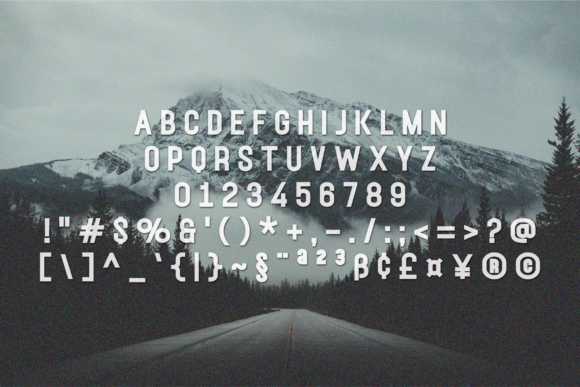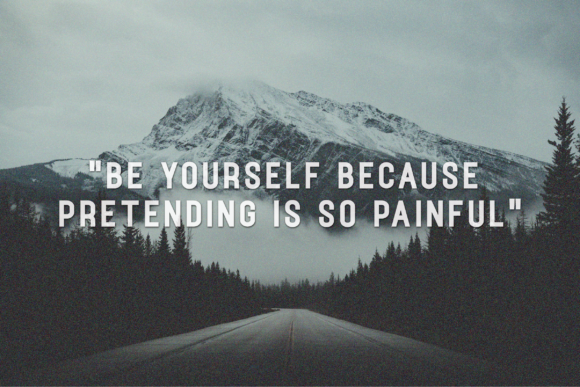
Discovering the Power of Routeks Font
The moment you land on a well-designed website, or spot a clever logo, you know you’re in the presence of something special. As a designer, I’ve had my fair share of eureka moments, but recently, I stumbled upon a game-changer – the Routeks Font. This all caps sans serif font has been making waves in the design community, and for good reason. With its smooth and clean lines, and just the right amount of contrast, it’s the perfect addition to any creative project.
As a valuable design resource, Routeks Font is a must-have for any serious designer. Whether you’re working on a high-quality branding project or creating a beautiful web heading, this font is sure to elevate your work. And the best part? It’s available for a free download, making it accessible to designers of all levels. With its transparent background and versatility, Routeks Font is the perfect choice for any design project that requires a touch of sophistication and style.
Key Features of Routeks Font
- Unique, modern design style that can add a touch of sophistication to any creative project
Honest Review: Routeks Font
I recently came across the Routeks Font, a free download that I’m excited to share my thoughts on. As a designer, I’m always on the lookout for high-quality design resources to elevate my creative projects. The Routeks Font definitely delivers.
- ✨ The font has a modern, sleek aesthetic that works well for a variety of design applications.
- ✨ The font comes in multiple weights and styles, making it easy to customize and adapt to different design needs.
While the Routeks Font is a great addition to any design resource library, there are a few limitations to consider:
- ⚠️ The font may not be suitable for complex or large-scale design projects due to its relatively simple design.
- ⚠️ Some users may find the font’s modern aesthetic too trendy or lacking in versatility.
Overall, I’m impressed with the Routeks Font and would recommend it to designers looking for a high-quality, modern font for their creative projects. While it may have some limitations, the benefits far outweigh the drawbacks.
Routeks Font
Tips for Getting the Most Out of Routeks Font
To get the most out of Routeks Font, use it in combination with a transparent background to create a clean and modern design. You can also experiment with different font sizes and colors to create a unique look.
Routeks Font is commonly used in graphic design, digital art, and creative projects that require a high-quality, modern font. It’s also a great option for designers who want to add a touch of elegance and sophistication to their designs.